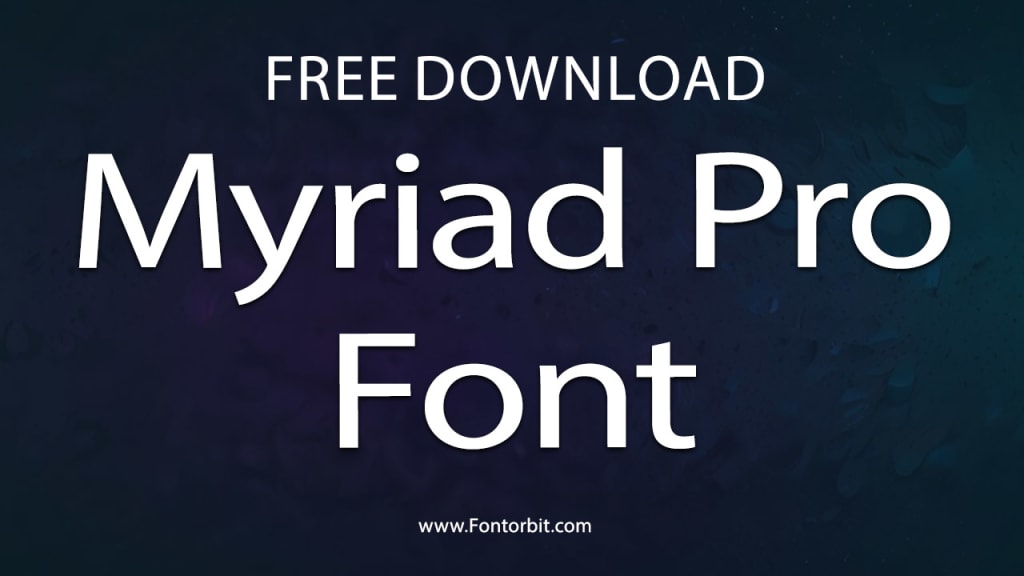
Myriad Pro Font: A Timeless Typeface for Modern Designs
Myriad Pro
In the realm of typography, few fonts stand the test of time while maintaining a contemporary appeal. Myriad Pro is one such typeface that has captured the hearts of designers across the globe.
Renowned for its versatility and elegance, Myriad Pro has become a staple in both professional and creative design projects. In this article, we delve into the history, characteristics, and applications of this celebrated font.
The History of Myriad Pro
Myriad Pro was designed by Robert Slimbach and Carol Twombly for Adobe Systems in the early 1990s. Originally released as Myriad, the font was later expanded and refined into the Myriad Pro family to include additional weights, styles, and OpenType features.
The design draws inspiration from the humanist sans-serif typefaces, characterized by their clean lines and open forms. Over the years, Myriad Pro has been adopted by prominent brands and institutions, cementing its status as a modern classic.
Key Characteristics of Myriad Pro
Humanist Design: Myriad Pro’s design is rooted in humanist principles, making it highly legible and approachable. Its open letterforms and balanced proportions lend a sense of warmth and clarity to the text.
Wide Range of Weights and Styles: The font family includes multiple weights (light, regular, bold, black) and styles (italic, condensed, semi-condensed), offering unmatched flexibility for various design needs.
OpenType Features: Myriad Pro supports advanced typographic features, including ligatures, fractions, and small caps, making it ideal for professional use.
Versatility: Whether used for branding, editorial design, or user interfaces, Myriad Pro adapts seamlessly to different contexts, ensuring consistent visual appeal.
Applications of Myriad Pro
Branding: Many global brands, including Apple and LinkedIn, have incorporated Myriad Pro into their visual identity, thanks to its clean and professional look.
Print and Editorial Design: The font’s readability makes it a favorite choice for magazines, brochures, and books.
Digital Interfaces: Its crisp and modern appearance translates well to screens, making it suitable for websites and mobile applications.
Signage: The clarity of Myriad Pro ensures that signage and wayfinding systems are easy to read at a glance.
Tips for Using Myriad Pro Effectively
Pair Myriad Pro with a contrasting serif font, such as Garamond or Minion, to create visual interest.
Use different weights and styles within the family to establish a clear hierarchy in your design.
Experiment with tracking and leading to enhance readability, especially for large blocks of text.
Conclusion
Myriad Pro is more than just a typeface; it’s a design powerhouse that combines functionality with aesthetic appeal. Its timeless design and extensive versatility make it a go-to choice for designers seeking a reliable and professional font.
Whether you’re crafting a brand identity, designing a website, or creating editorial content, Myriad Pro delivers exceptional results every time.
FAQs
1. What makes Myriad Pro unique compared to other fonts?
Myriad Pro stands out for its humanist design, extensive range of weights and styles, and advanced OpenType features, which make it both versatile and highly legible.
3. Can I use Myriad Pro for web design?
Yes, Myriad Pro is an excellent choice for web design due to its clean and modern look. However, ensure you have the proper licensing for web use.
4. Which fonts pair well with Myriad Pro?
Myriad Pro pairs well with serif fonts like Garamond, Minion, or Georgia. It also works well with other sans-serif fonts for a more minimalist aesthetic.
5. What industries commonly use Myriad Pro?
Myriad Pro is popular in industries like technology, education, publishing, and branding due to its professional and versatile design.
6. Are there any alternatives to Myriad Pro?
Yes, fonts like Frutiger, Helvetica Neue, and Open Sans are often considered alternatives to Myriad Pro, offering similar functionality and aesthetics.
7. Does Myriad Pro support multiple languages?
Yes, Myriad Pro has extensive language support, including Latin, Cyrillic, and Greek scripts, making it suitable for global use.